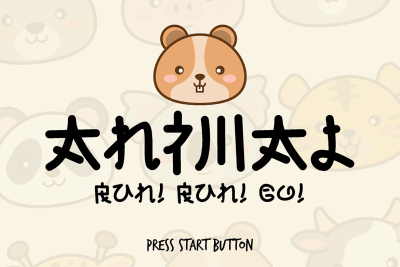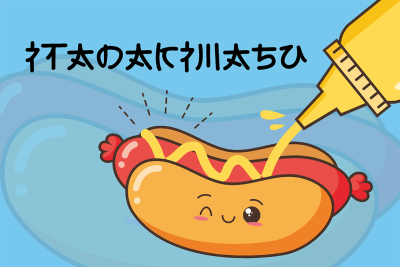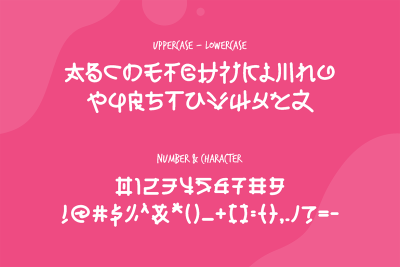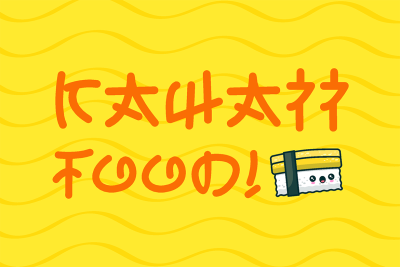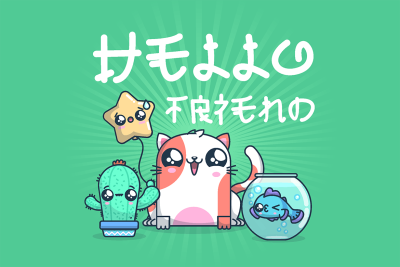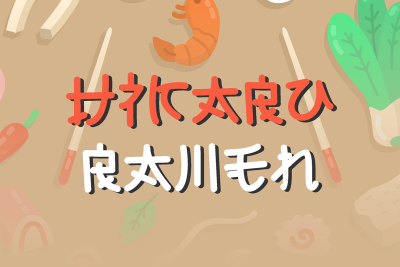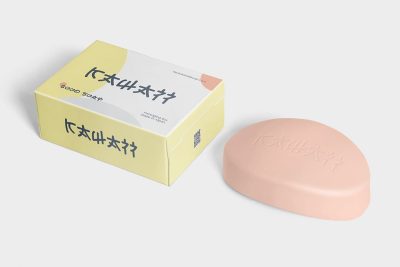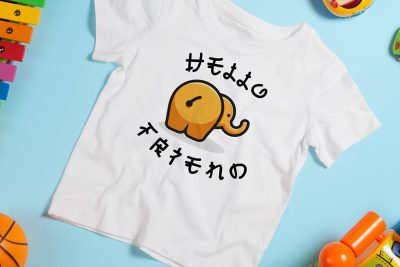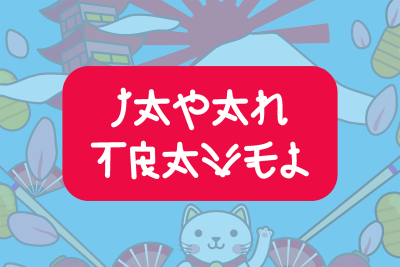
Japanese font Sunrize is a playful typeface inspired by Japanese pop culture and kawaii (cute) aesthetics. With rounded, hand-drawn characters, Sunrize brings an animated, cheerful vibe to any project. Its soft curves and friendly style add a welcoming feel, perfect for text that aims to create a joyful atmosphere. This font draws inspiration from casual Japanese handwriting, giving it an approachable and fun personality.
Sunrize is versatile for digital and print uses. It stands out on vibrant backgrounds and pairs well with colorful illustrations, adding a playful touch. With its clear and simple design, Sunrize works well in various text sizes, making it suitable for both titles and small labels. The lively, accessible style captures attention, making it ideal for engaging designs. Its Japanese-inspired look offers a cultural hint that feels modern and fresh, appealing to those who enjoy a cute Japanese aesthetic.
Japanese font Sunrize Best Suited For
Sunrize is perfect for designers and brands looking to add a joyful Japanese flair. Itโs especially fitting for food brands like sushi restaurants, snack packaging, and Japanese-themed menus. Sunrizeโs cute and approachable style attracts attention, helping brands connect with customers on a fun level.
Social media creators, YouTubers, and influencers can also benefit from Sunrizeโs cheerful look. This font adds personality to video titles, Instagram posts, and online ads, making content stand out. Itโs also great for childrenโs content and family-friendly designs, creating a cute, engaging look for young audiences.
Additionally, Sunrize is ideal for merchandise like T-shirts, stickers, tote bags, and stationery. Its playful vibe resonates with fans of Japanese culture and kawaii designs. Sunrize is also a great choice for event branding, such as festivals, anime conventions, or art shows, capturing the spirit of these events. Its charm, readability, and versatility make Sunrize a valuable asset for fun, personality-filled designs.